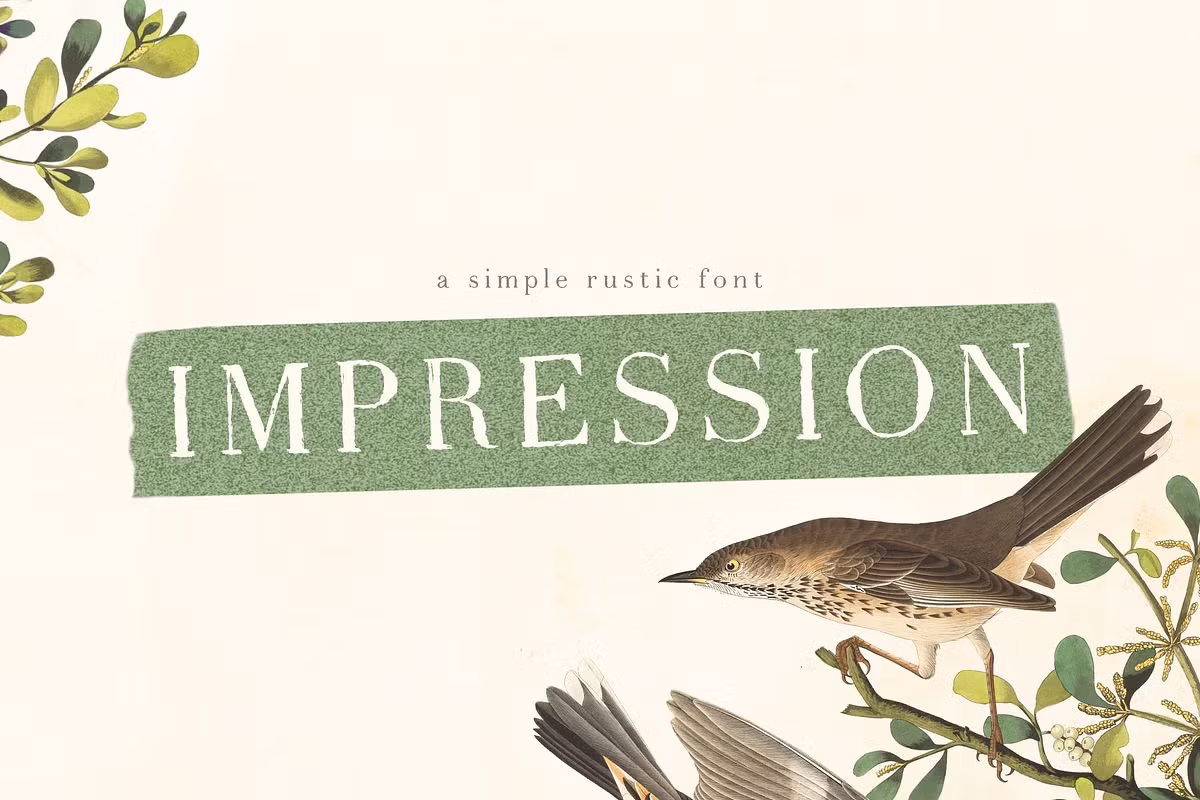
Please note that you must purchase this font for commercial use. You can download Hand-lettered Rustic Font for free, strictly for personal testing purposes only. This rustic, hand-lettered font is designed to bring a warm, vintage charm to your designs. With its natural, organic strokes and rough, imperfect edges, Hand-lettered Rustic Font Free Download is perfect for creating rustic branding, logos, invitations, posters, and any project that requires a handcrafted, earthy aesthetic.
The font gives your typography a personal, artistic touch, making it ideal for anything from farm-to-table branding to outdoor event invitations and retro designs. It includes uppercase and lowercase letters, numerals, punctuation, and multilingual support, offering versatility for various creative applications.
Whether you're crafting a custom logo, designing charming stationery, or creating vintage-inspired promotional materials, Hand-lettered Rustic Font adds a natural, handmade feel to your typography.